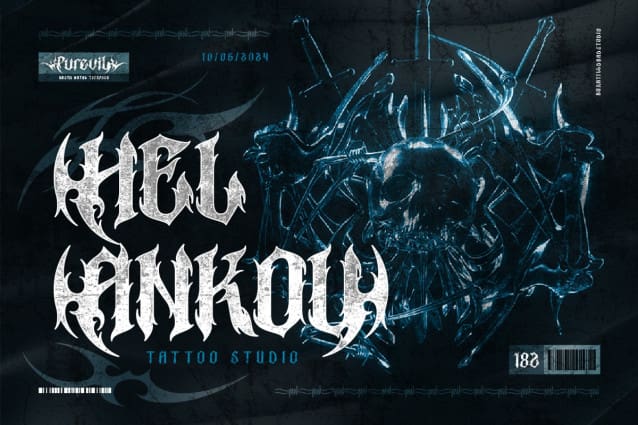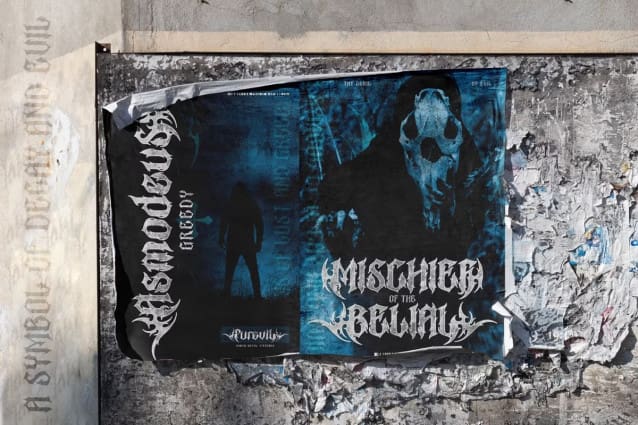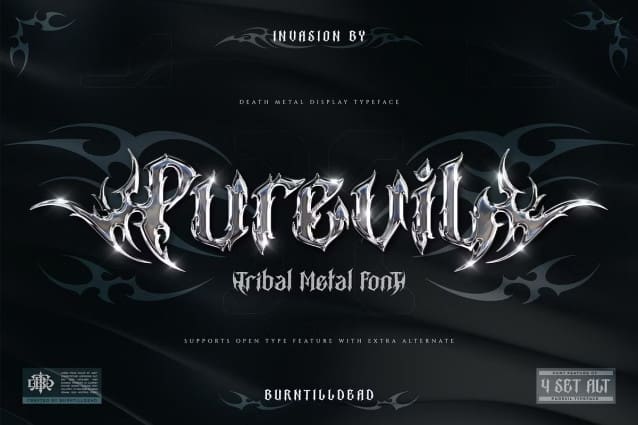
Purevil Metal Font
Purevil Metal Font, a tribal metal font that has bold letters but still looks modern with unique shape every each letter. Also this font include with ornament so perfect choice for those of you who are creating metal-themed designs such as album covers, metal band logos, music concert posters also game interface and many others. This tribal metal font can add extra punch to your design.